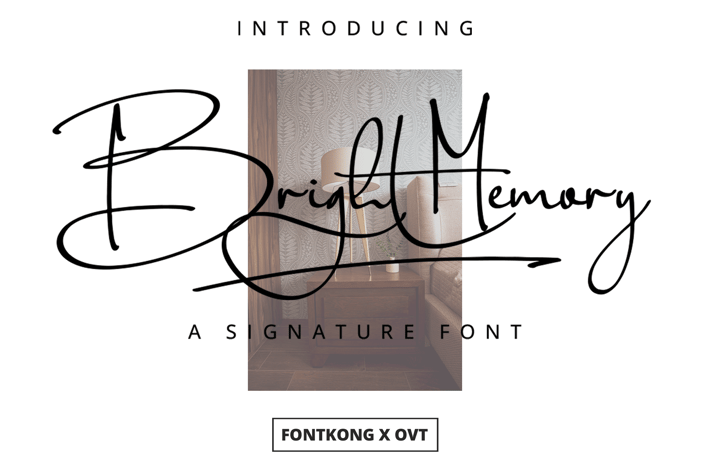
Bright Memory - A Signature Font
Bright Memory is a sophisticated and elegant signature font designed to bring a personal and luxurious touch to your design projects. With its smooth strokes and refined letterforms, Bright Memory is perfect for high-end branding, elegant invitations, personal signatures, and stylish logos. This font captures the beauty of handwritten elegance, ensuring your work stands out with a sense of exclusivity and grace.
Crafted with meticulous detail, Bright Memory features fluid and graceful characters that offer excellent readability and visual appeal. Its elegant design makes it ideal for both headlines and body text, providing a cohesive and polished look across all your visual communications. The font’s versatility allows it to seamlessly integrate into various design contexts, from digital platforms to printed materials.
Elevate your design projects with Bright Memory, a font that embodies the perfect blend of personal charm and sophistication. Its unique style and adaptability make it an essential addition to any designer’s toolkit for creating refined and captivating visuals. Enhance your work with Bright Memory and experience the allure of luxurious handwritten typography.